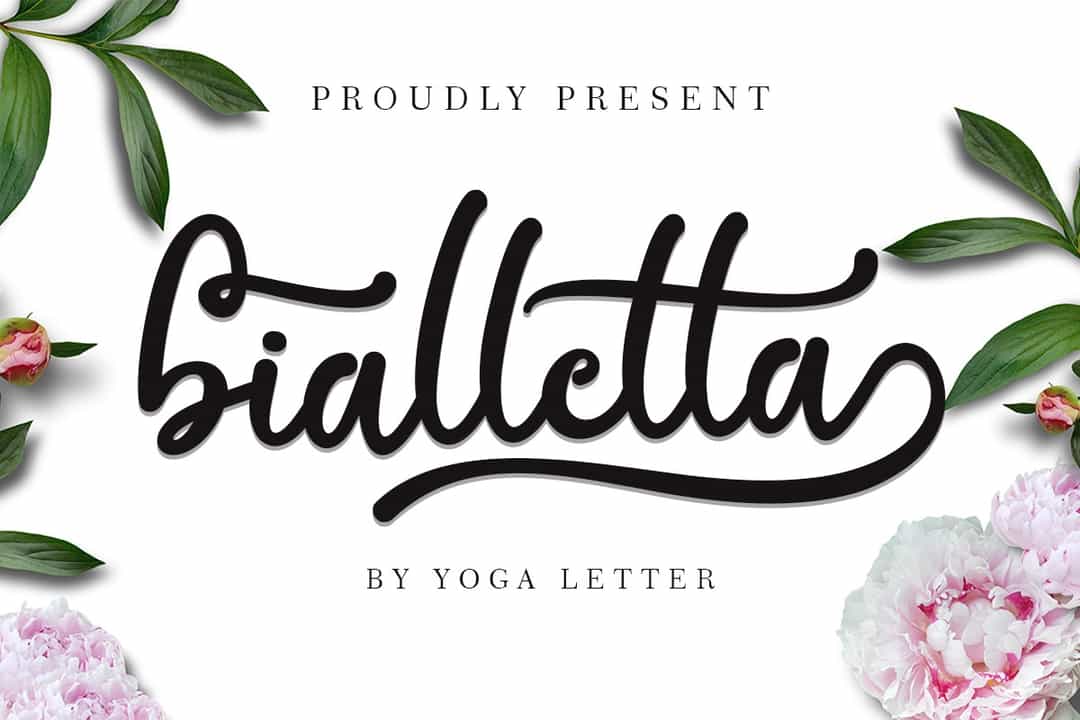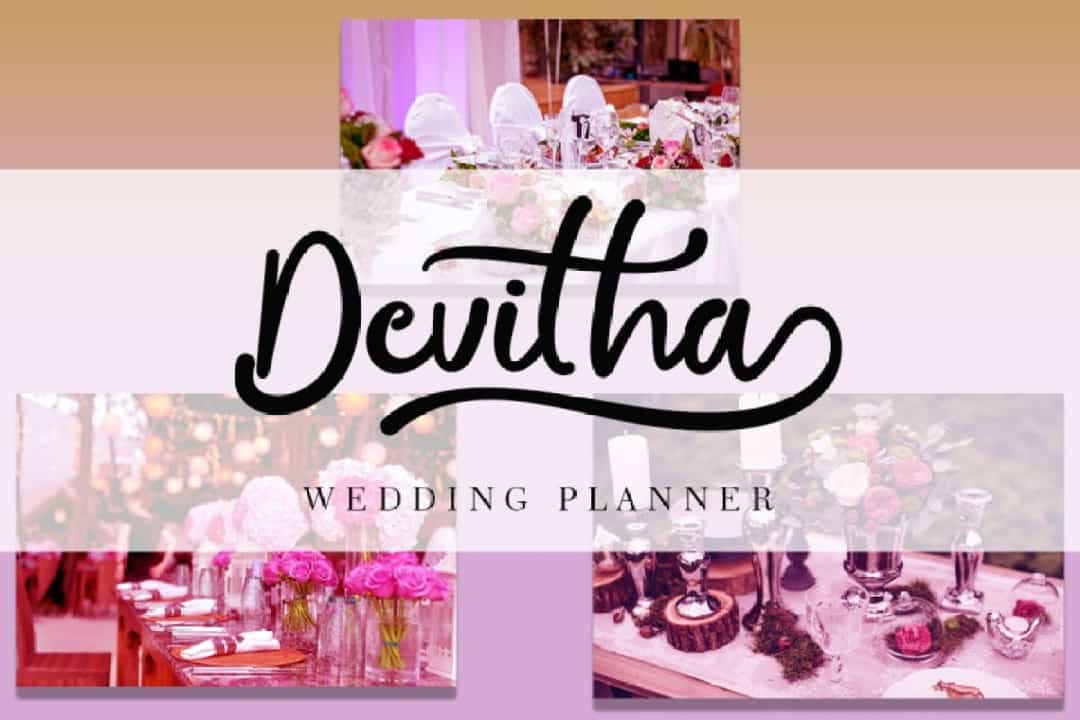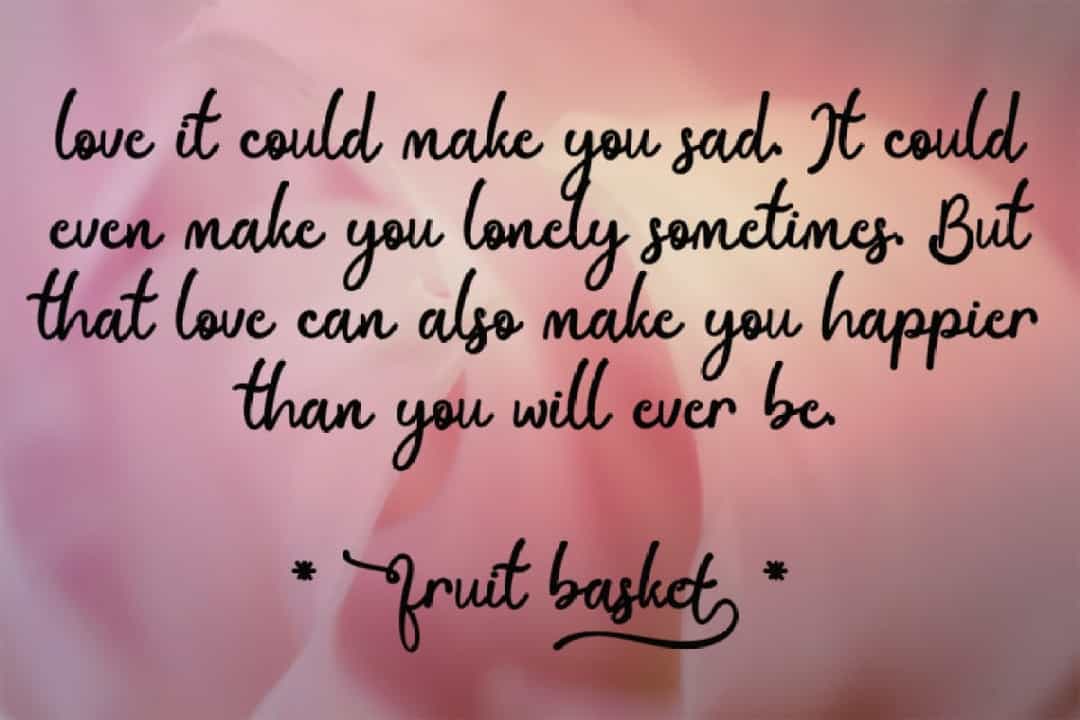
Bialletta font is modern, professional, and classy in design. Each of the letters are crafted in such a way that the text that is formed is very aesthetic. This font has a script style and can easily be used for any project that you may have such as blog headers, quote posters, wedding branding, logos and fashion, apparel, invitations and others. stationery, and more.